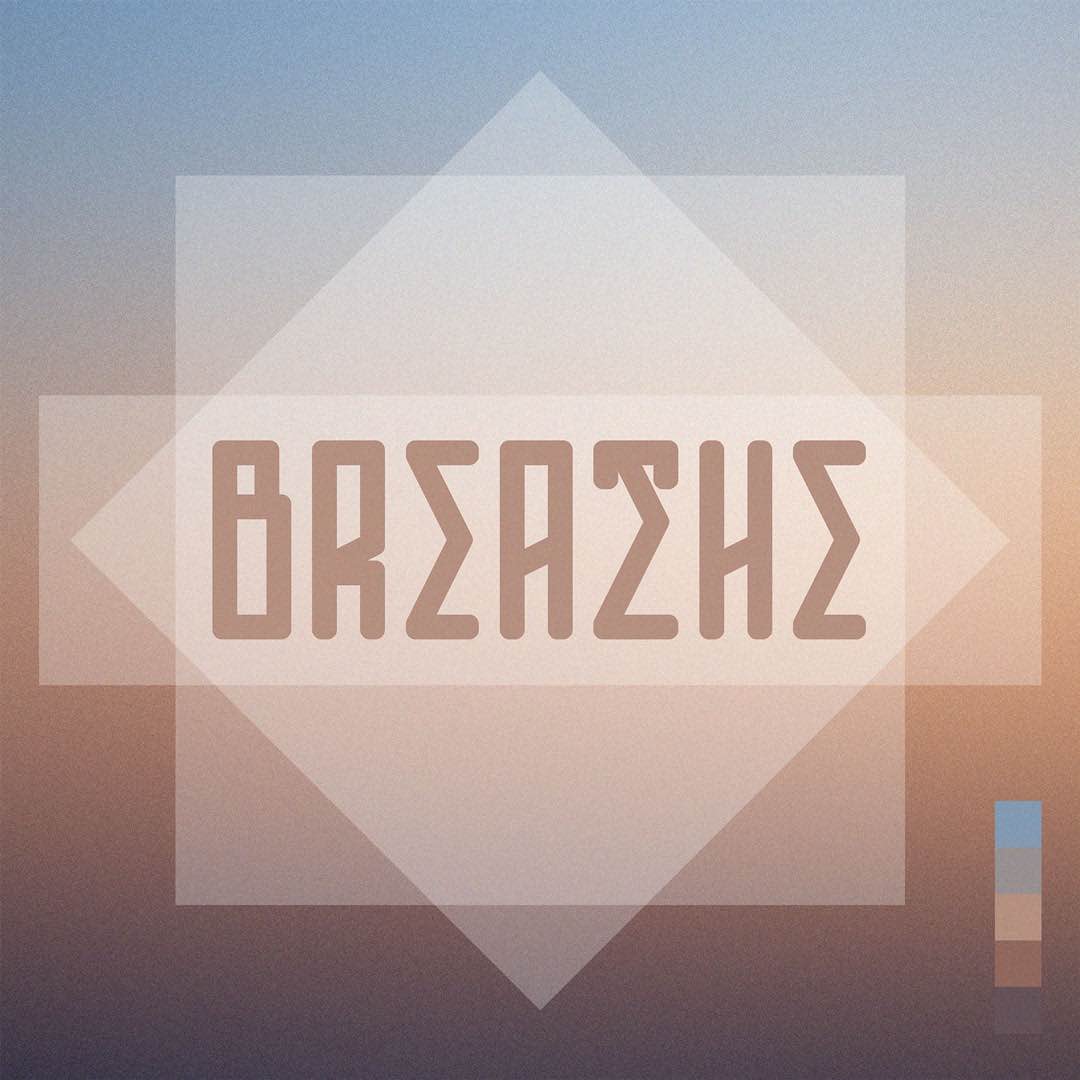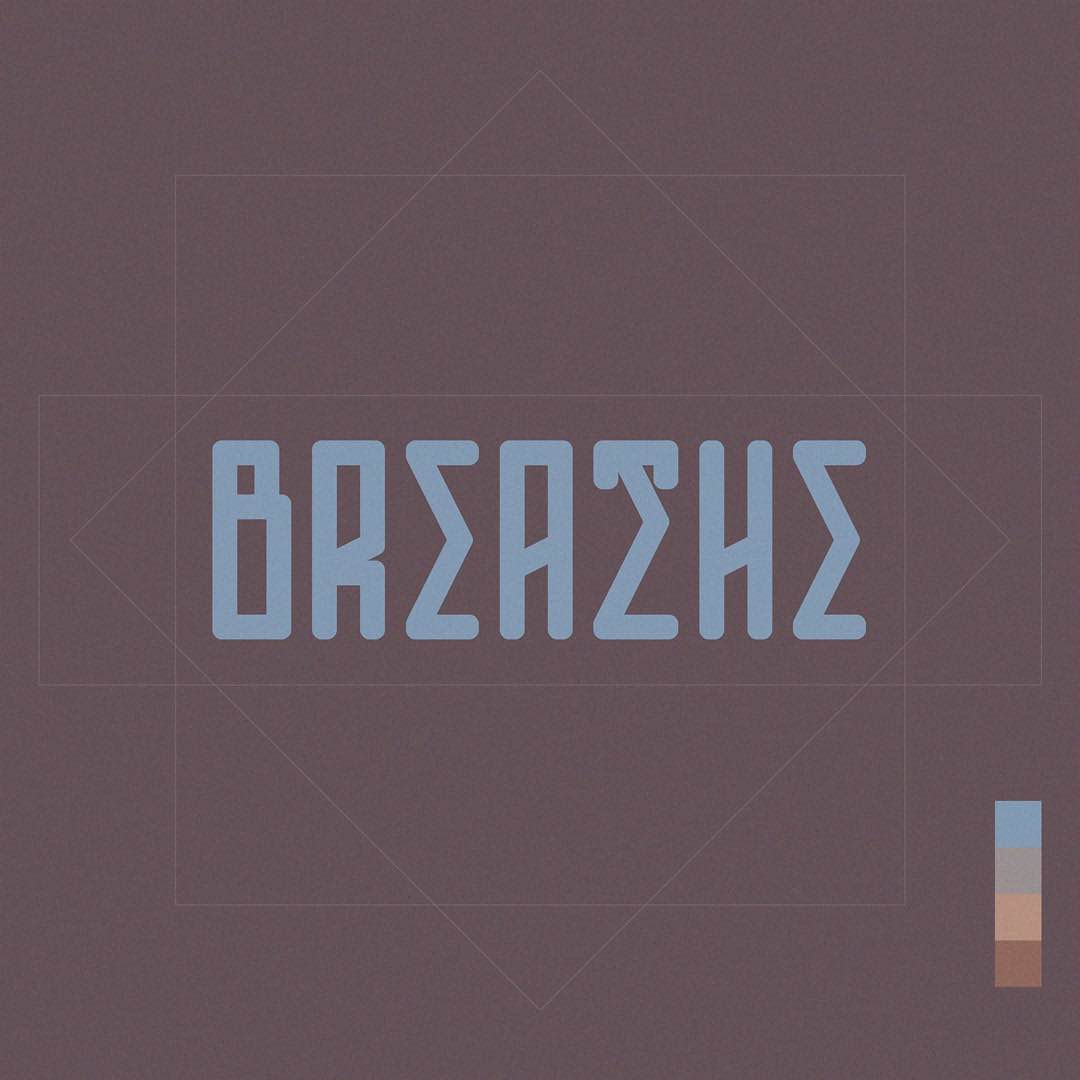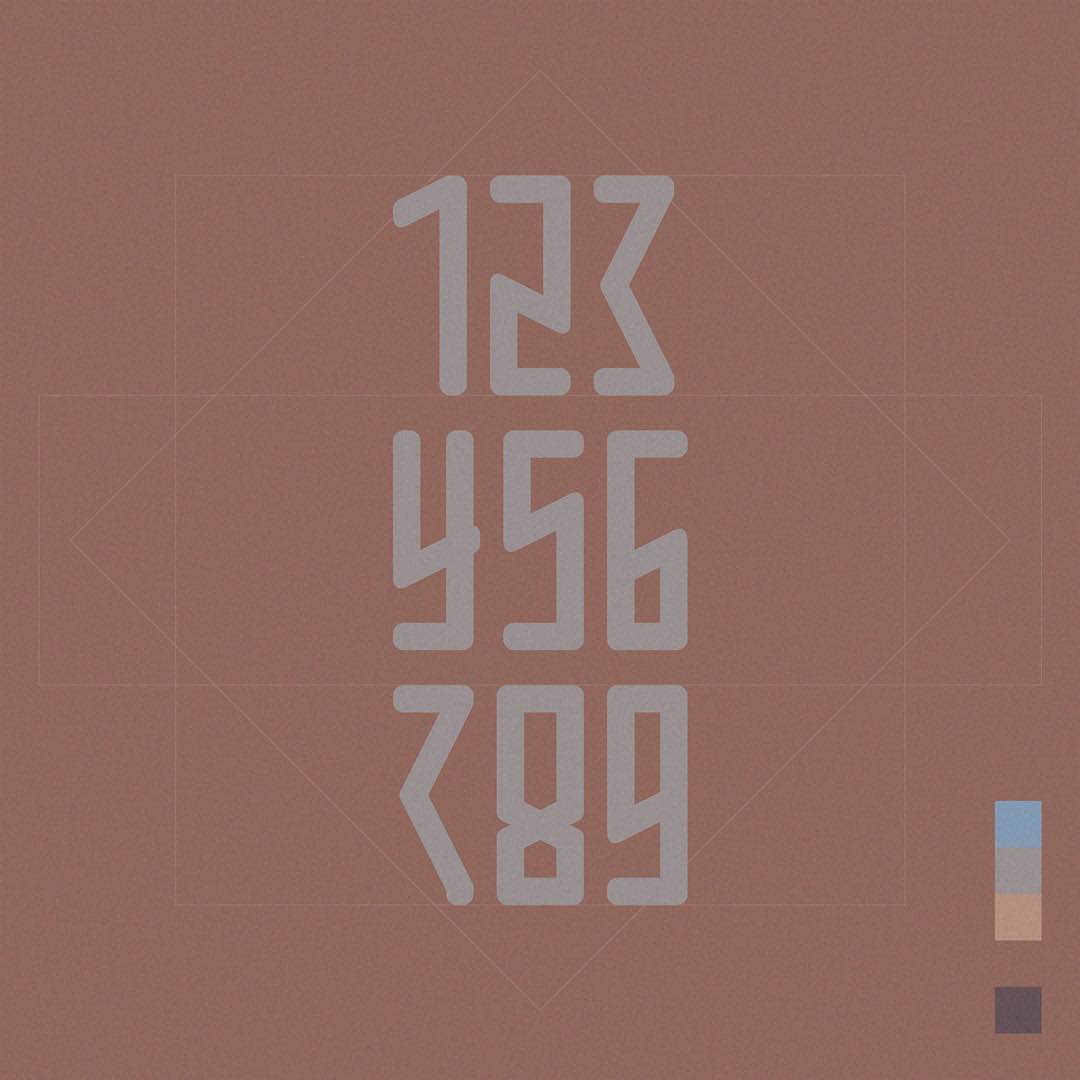
Breathe is typography on tranquilizer, smooth, minimal, and quietly confident. Designed with clarity and calm in mind, this sans-serif typeface brings just enough personality to feel human without making a sound. It’s the font equivalent of a deep inhale before something meaningful. Perfect for wellness brands, lifestyle packaging, serene UI, or anything that demands clean without feeling cold.